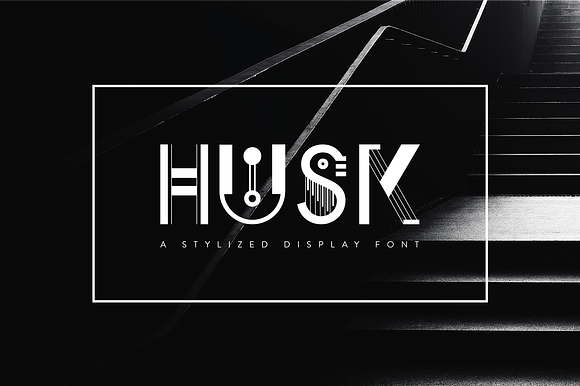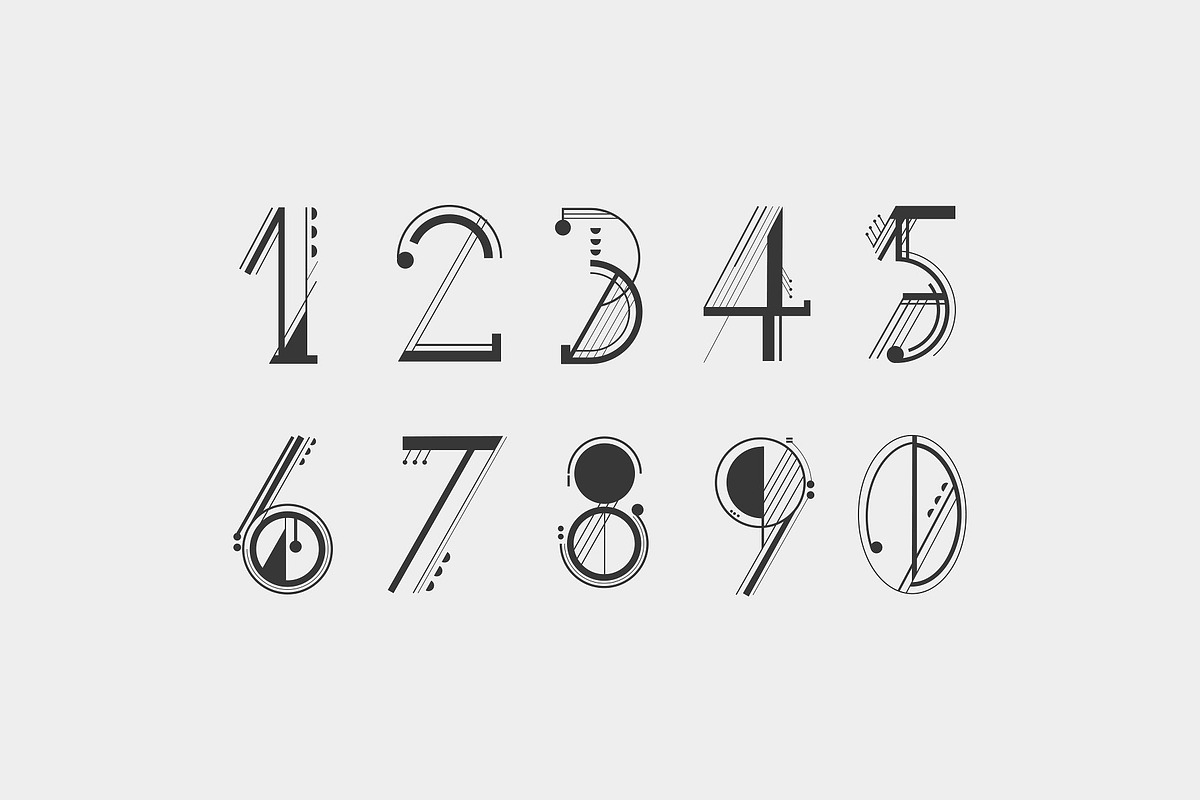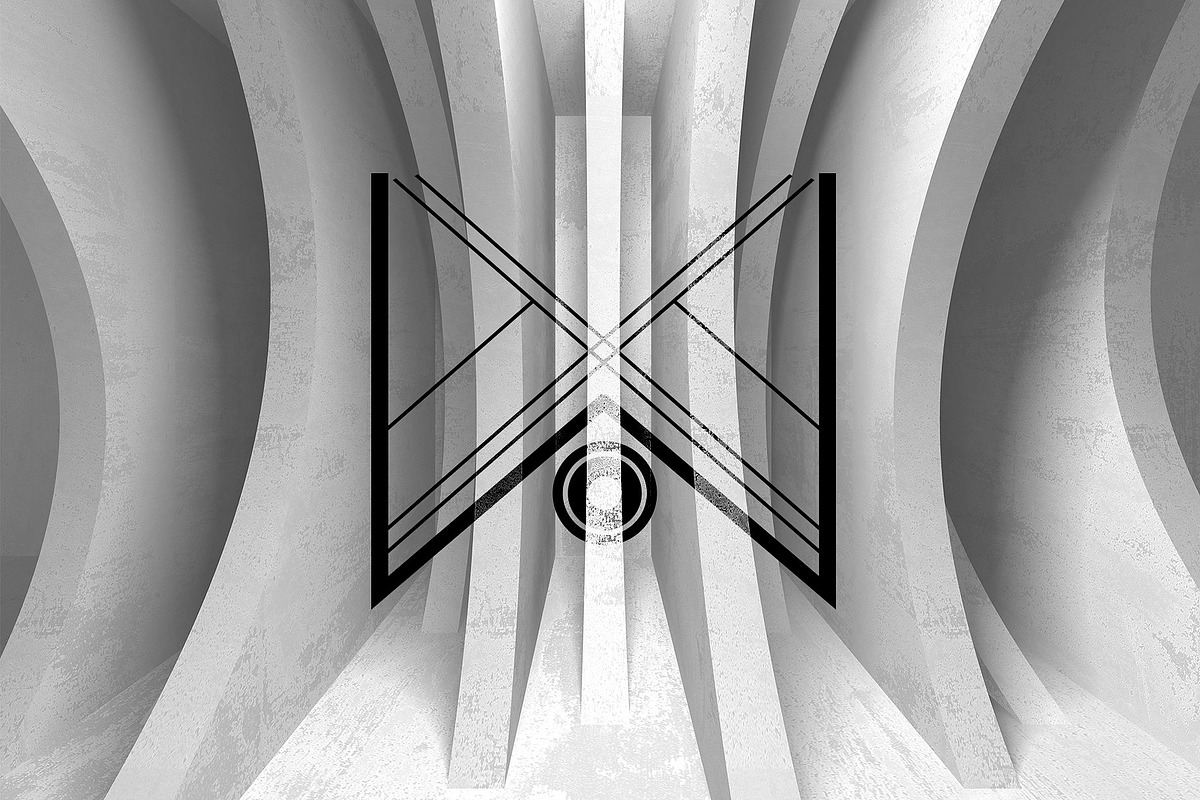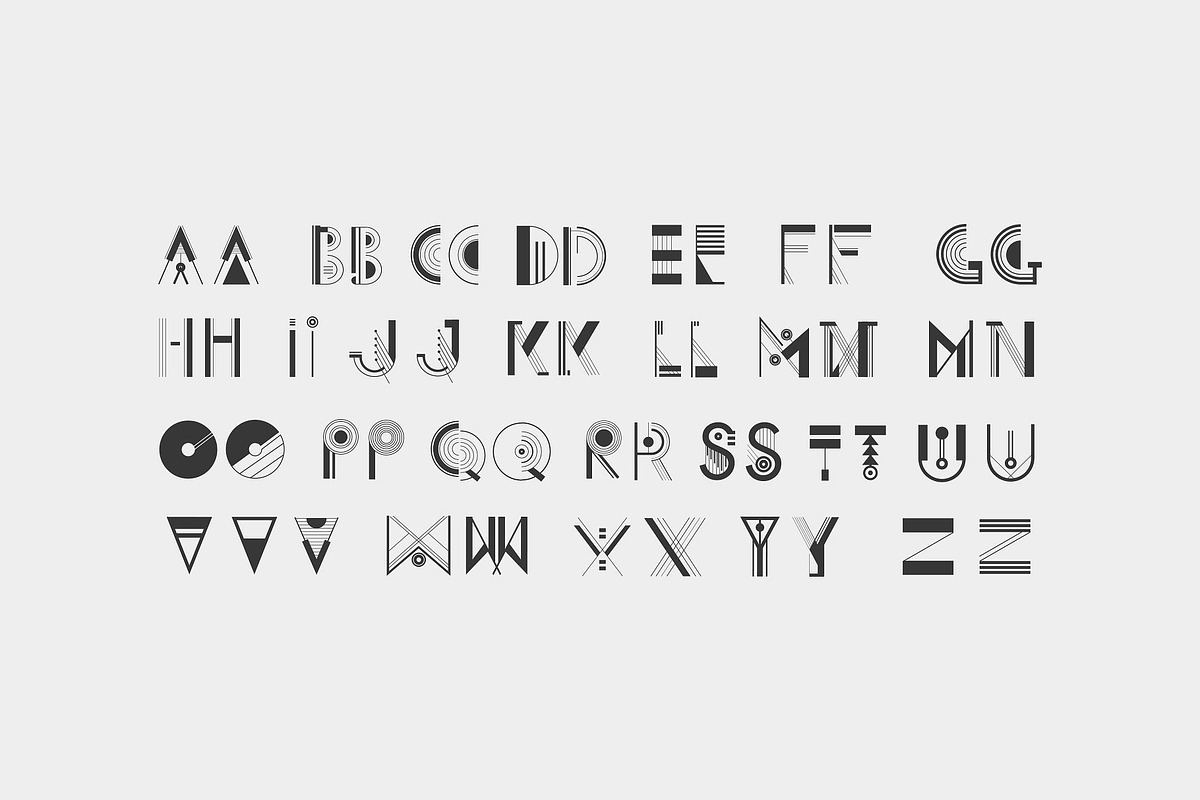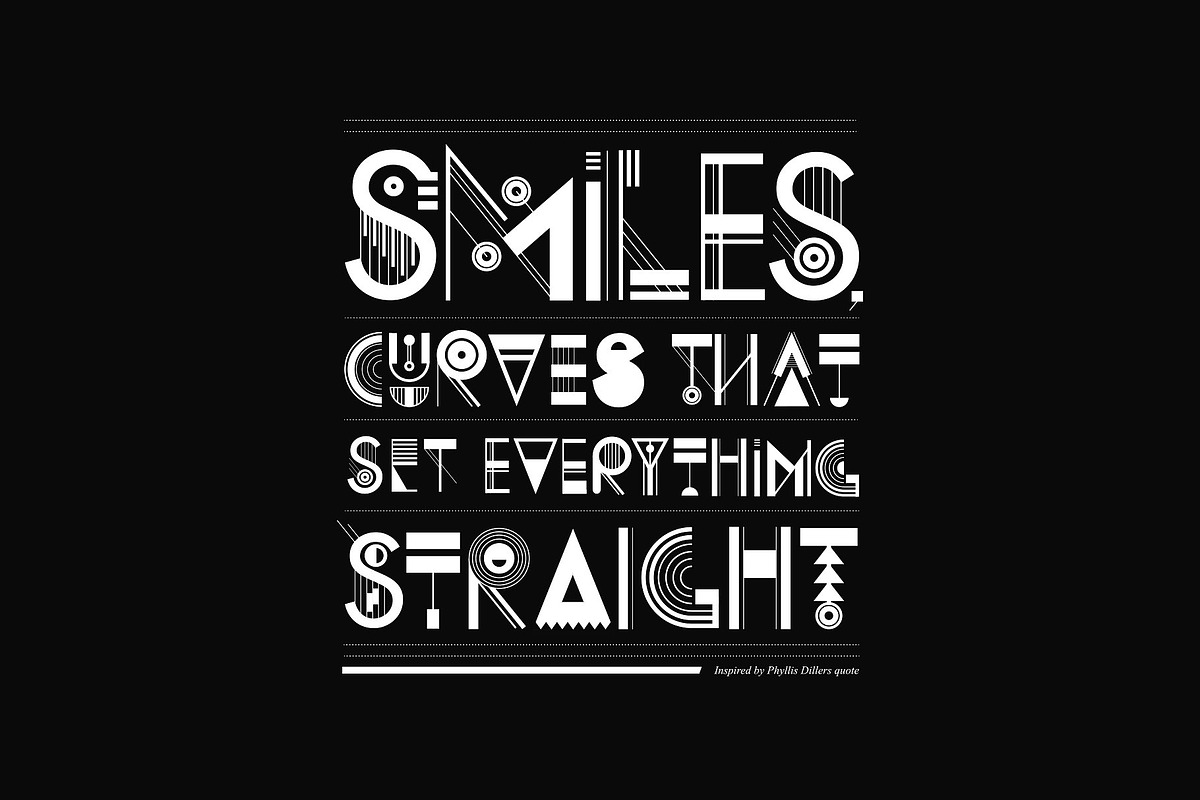
Husk | Display Font
Husk is a unique typeface inspired by shapes and stylistic elements.
It has a strong emphasis on varied line weights and solid fills. Its unique shape and proportions lends a mix of abstract and modern aesthetics.